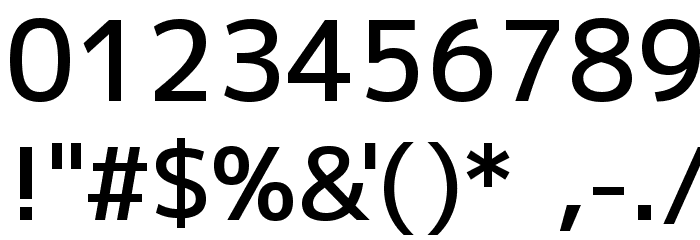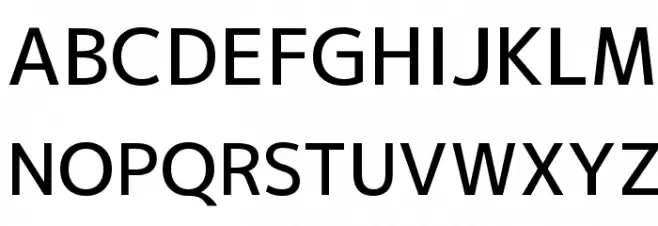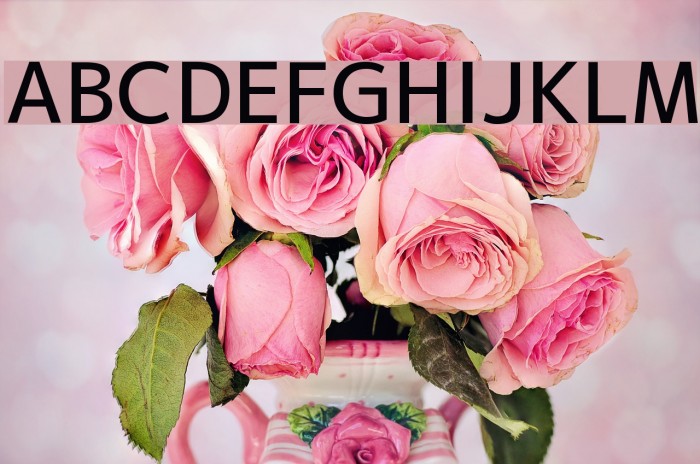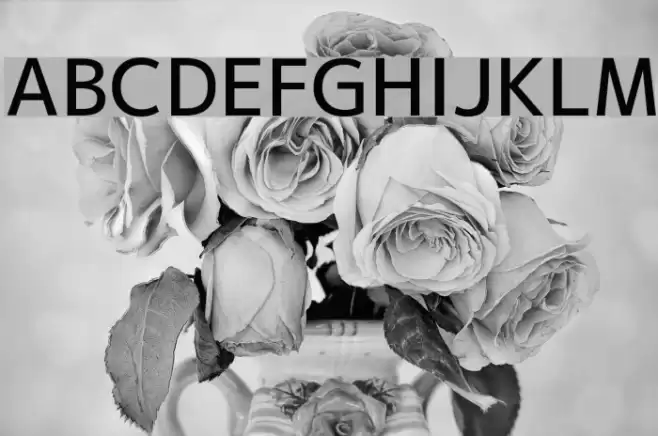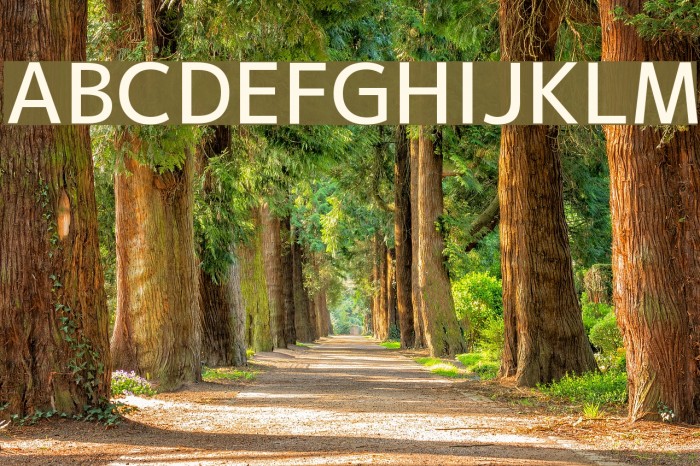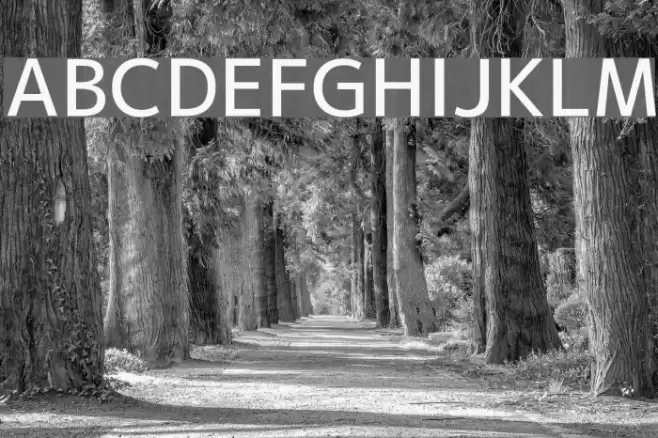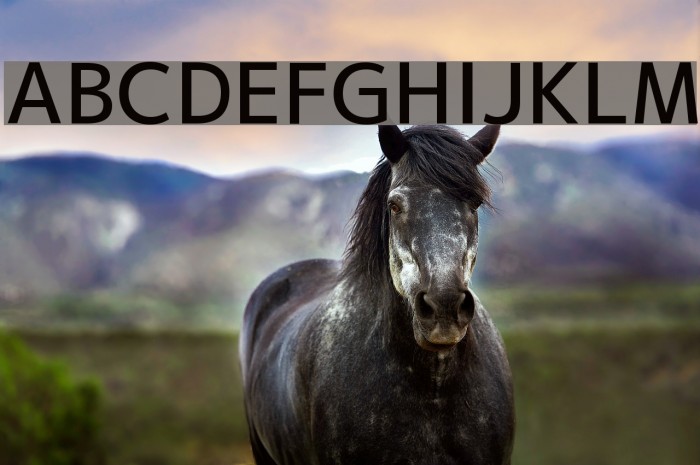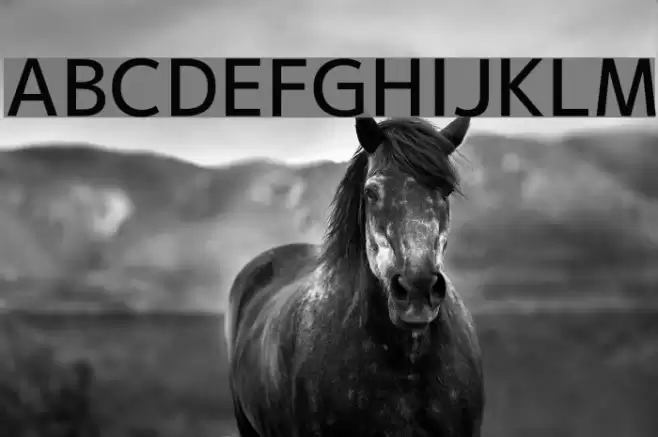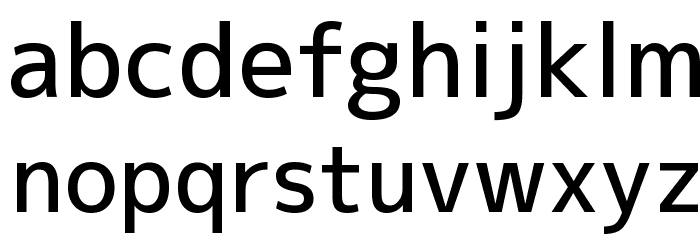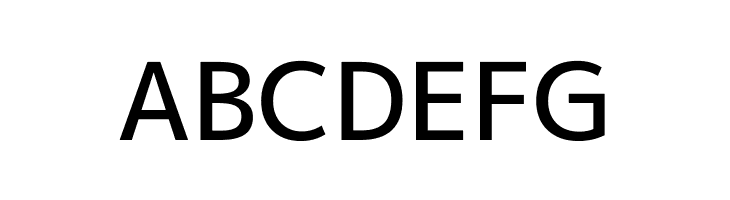
M+ 2p medium Font
M+ 2p medium Description
This font features a clean and modern sans-serif design, characterized by its simplicity and readability. The letters are evenly spaced with a consistent stroke width, providing a balanced and harmonious appearance. The uppercase and lowercase letters are well-proportioned, making it suitable for both display and body text. The numerals are clear and distinct, ensuring legibility in various contexts. Special characters are included, maintaining the font's cohesive style. Its versatility makes it ideal for a wide range of applications, from digital interfaces to print media.
| Use Case | Headlines, Body text, Logos |
| Proposed Projects | Ideal for web design, corporate branding, editorial layouts, and user interfaces. |